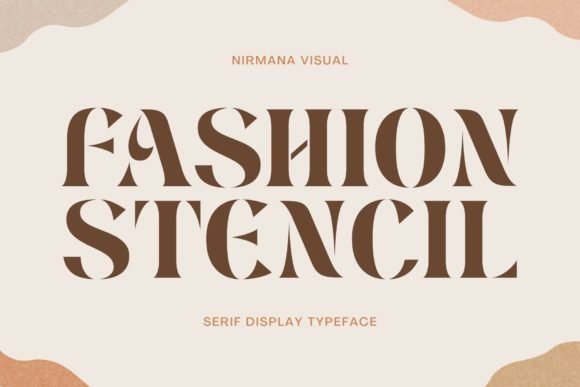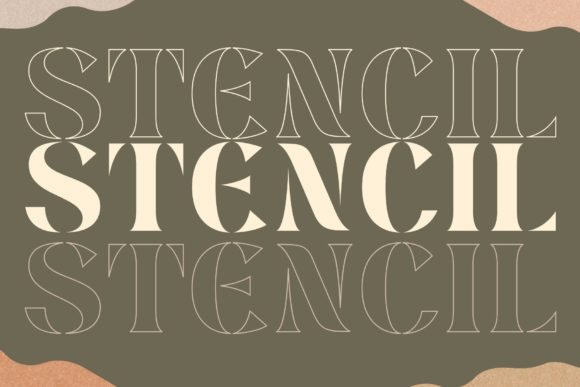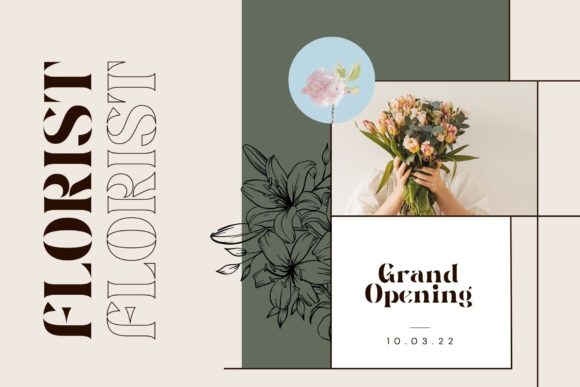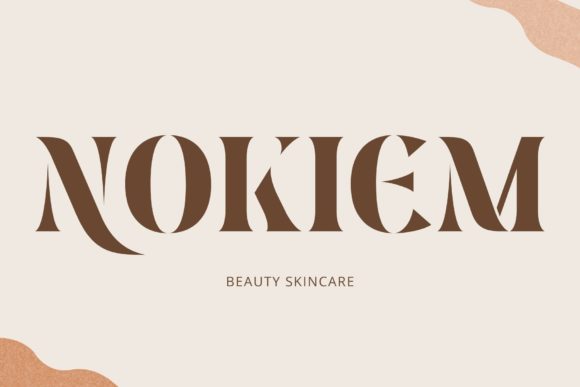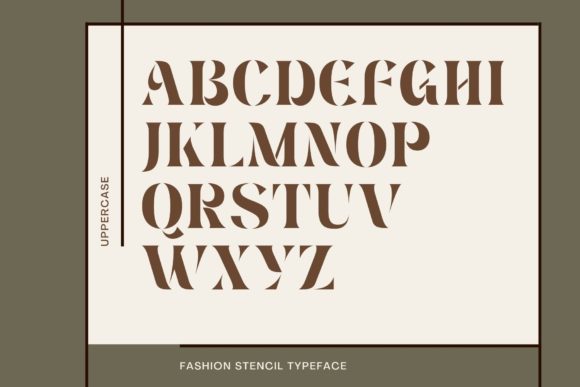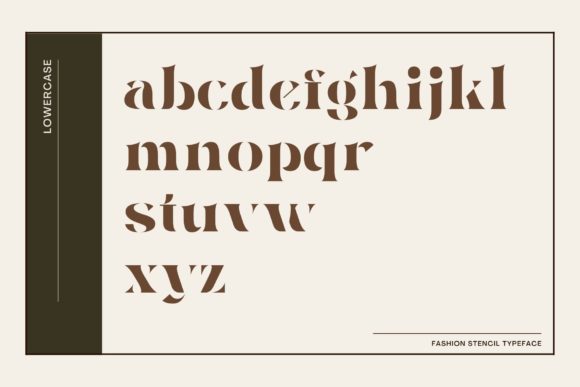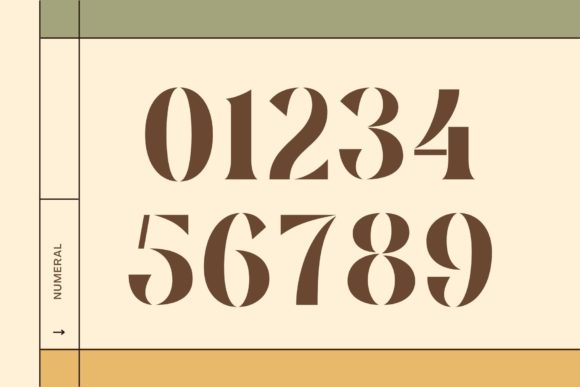
The Perfect Font for Fashionable Designs
You’ve spent hours brainstorming ideas for your new fashion brand’s logo, and finally, you’ve nailed the perfect concept. Now it’s time to bring it to life with the perfect font. As you scroll through your font library, you stumble upon Fashion Stencil Font – a sleek, contemporary serif font that exudes sophistication and style. You can’t help but feel a spark of excitement as you envision your logo, social media posts, and advertisements coming together in perfect harmony.
Fashion Stencil Font is more than just a font – it’s a tool that helps designers like you create stunning visual identities for fashion brands. With its beautiful typographic harmony, this font is perfect for a wide range of design projects, from logos and branding to social media posts and product designs. Whether you’re working on a high-end fashion campaign or a small e-commerce store, Fashion Stencil Font is sure to elevate your designs and leave a lasting impression on your audience.
Fashion Stencil Font Key Features
- Unique Characteristics: Fashion Stencil Font features a bold, geometric design with clean lines and sharp edges, perfect for creating eye-catching fashion and lifestyle content.
Fashion Stencil Font Review
I recently had the chance to work with the Fashion Stencil Font, and I have to say, it’s a stylish addition to any design project. ✨ The font’s bold, geometric lines and clean aesthetic make it perfect for fashion and lifestyle brands, or any project that requires a touch of modern sophistication.
The font comes in a variety of weights and styles, allowing for a lot of flexibility in terms of layout and design. ✨ It’s also highly customizable, making it easy to adapt to different design contexts.
- ✨ Clean and modern aesthetic
- ✨ Highly customizable
- ✨ Perfect for fashion and lifestyle brands
- ✨ Available in multiple weights and styles
- ⚠️ Limited to a specific niche (fashion and lifestyle)
- ⚠️ May not be suitable for projects requiring a more classic or elegant feel
- ⚠️ Some users may find the font too bold or overwhelming
Overall, I’d say the Fashion Stencil Font is a solid choice for designers working on fashion and lifestyle projects. It’s easy to use, highly customizable, and adds a touch of modern style to any design. However, it may not be the best fit for every project, so be sure to consider the context and audience before making a decision.
For a cohesive look, pair the Fashion Stencil Font with bold lines, bright colors, and geometric shapes. Experiment with different font sizes and combinations to create a visually appealing design.
The Fashion Stencil Font is ideal for:
- Designer labels and logos
- Fashion magazine covers
- Branding materials (business cards, brochures)
- Streetwear and urban fashion designs